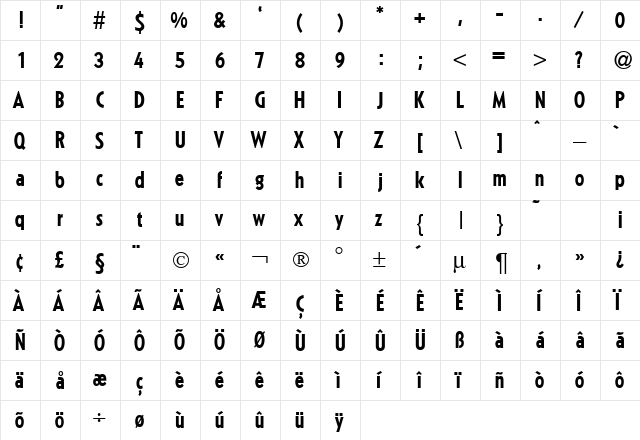
KabinConMedDB Normal Font Preview
KabinConMedDB Normal
KabinConMedDB Normal Font Details
Design Context for KabinConMedDB Typeface
KabinConMedDB takes a measured approach to typography — its balanced proportions and neutral character make it a reliable workhorse for both digital and print work.